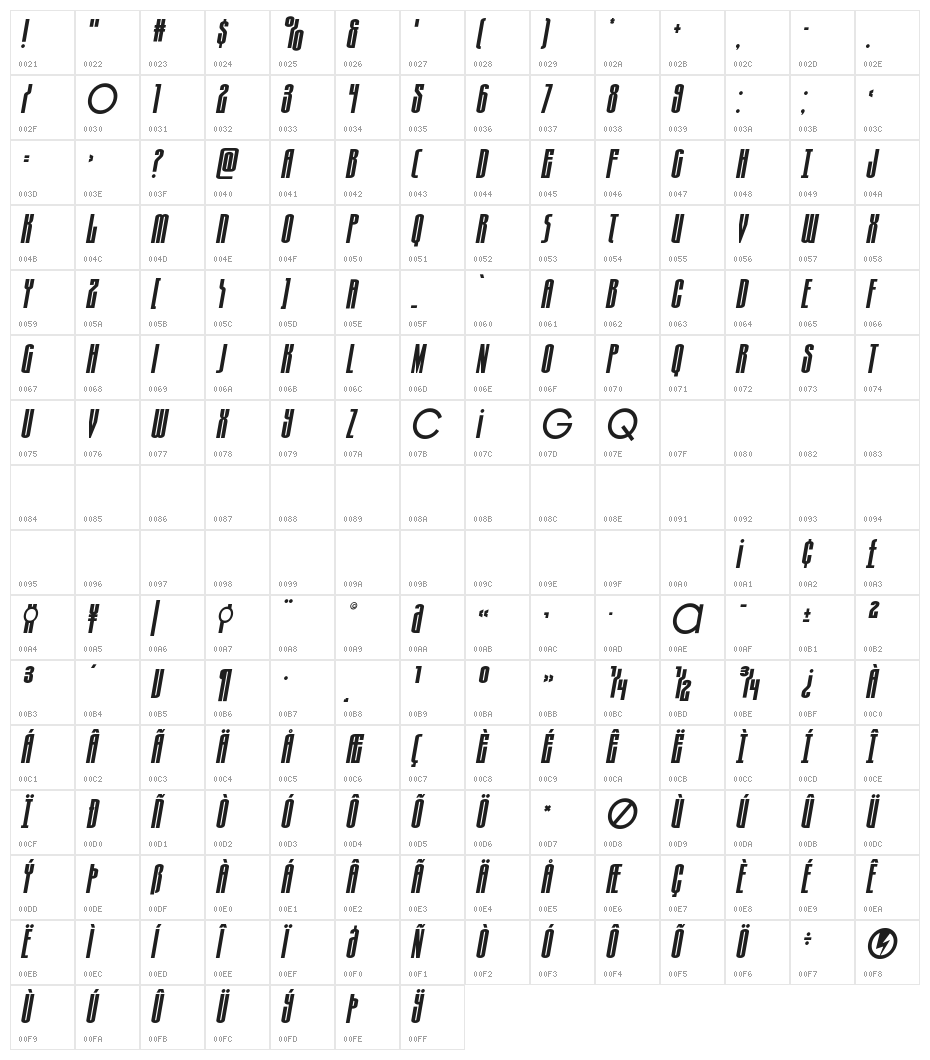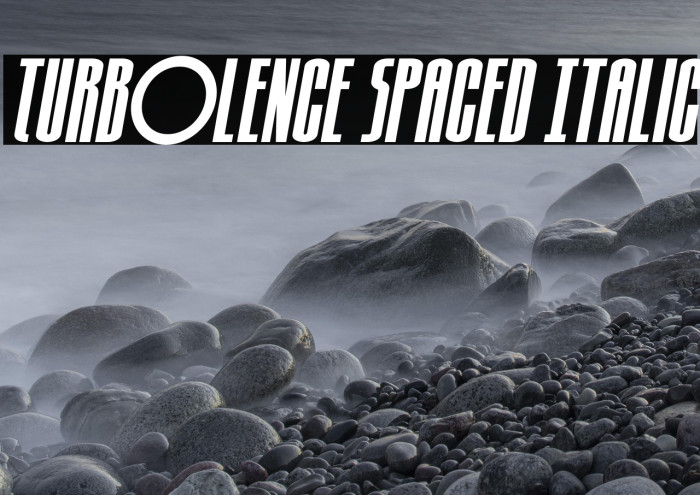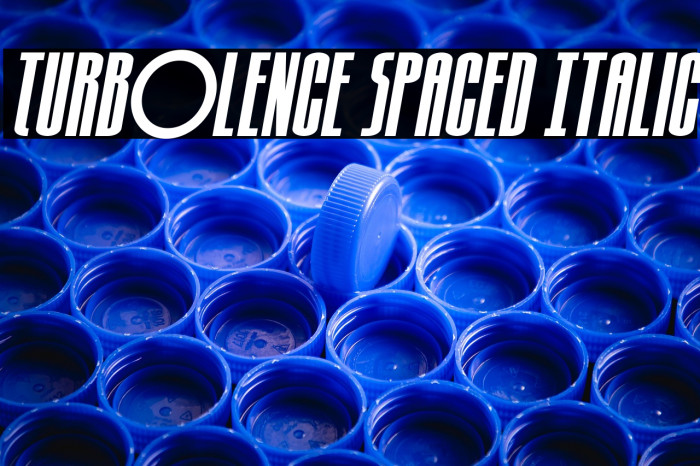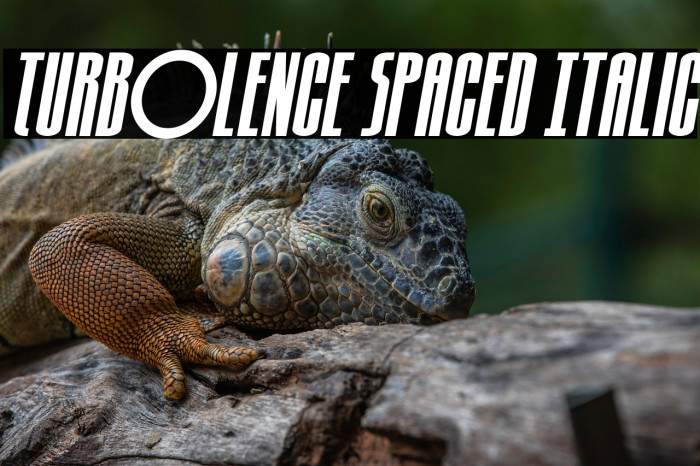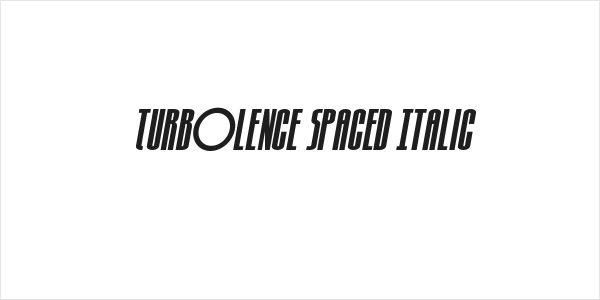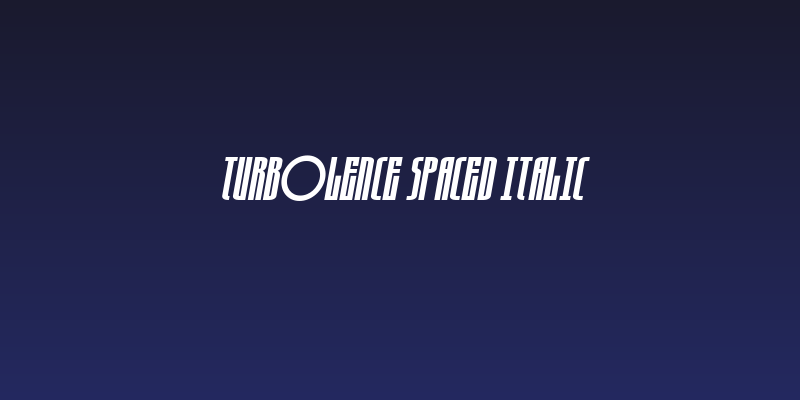
Turb0lence Spaced Italic Font
Turb0lence Spaced Italic Description
This font features a bold and italicized style with a distinct slant, giving it a dynamic and energetic appearance. The characters are tall and narrow, emphasizing verticality and movement. The uppercase and lowercase letters maintain a consistent width, while the numbers and special characters complement the overall design. The font's sharp edges and clean lines contribute to its modern and sleek aesthetic, making it suitable for projects that require a strong visual impact.